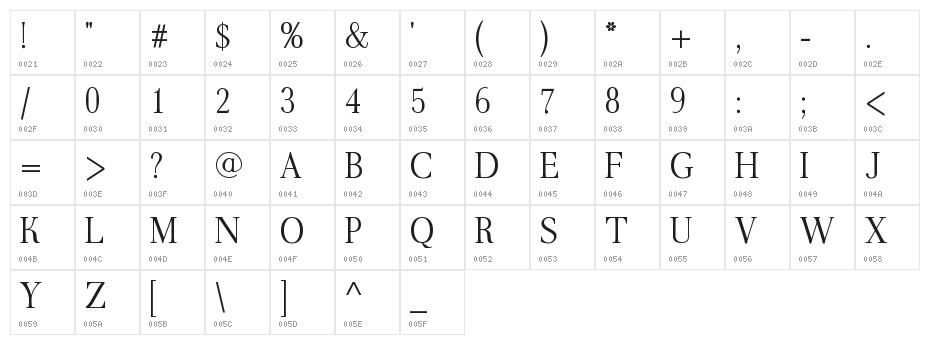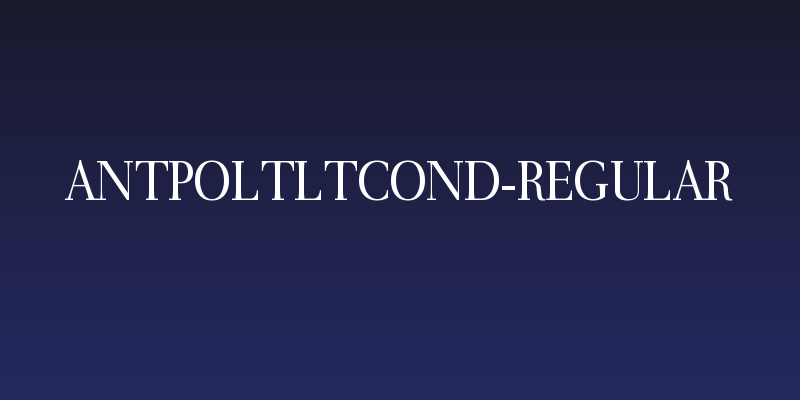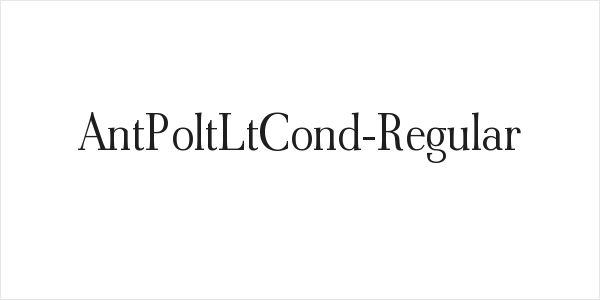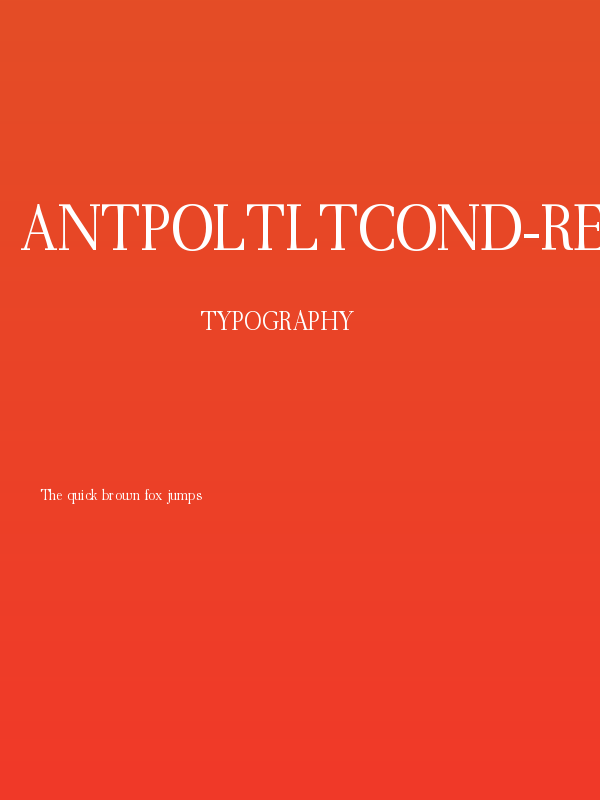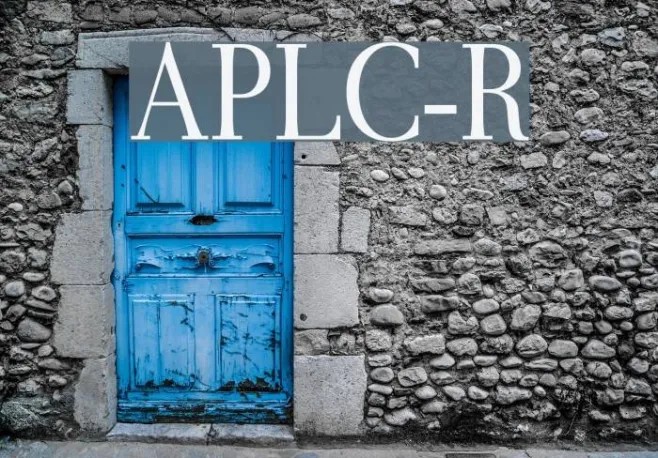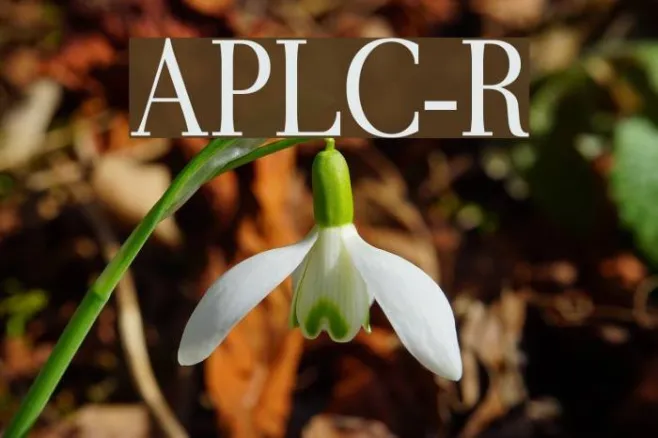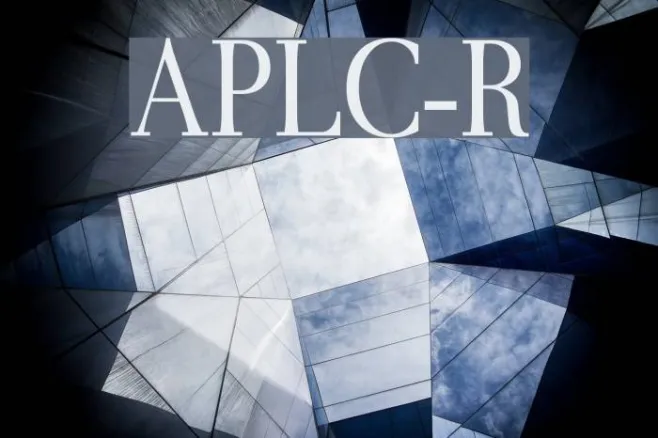
AntPoltLtCond-Regular Font
AntPoltLtCond-Regular Description
This font features a classic serif style with elegant and refined letterforms. The characters exhibit a slight contrast in stroke thickness, giving them a sophisticated appearance. The uppercase letters are tall and commanding, while the lowercase letters maintain a balanced and harmonious look. The numerals are clear and distinct, ensuring readability. Special characters are well-integrated, maintaining the font's overall aesthetic. The design is versatile, suitable for both formal and contemporary applications.